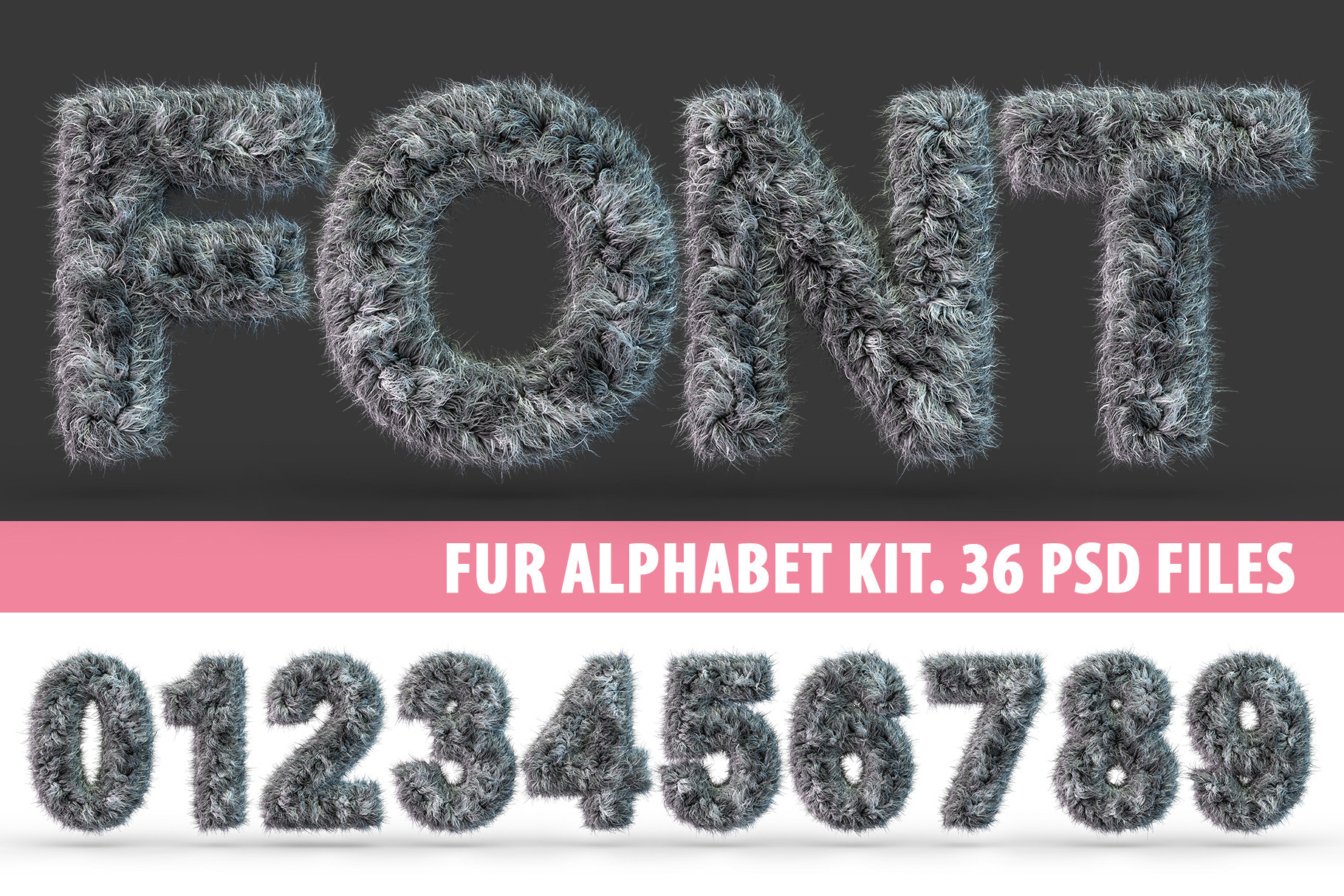
Uppercase fluffy and furry GRAY font
Uppercase fluffy and furry font made of fur texture for poster printing, branding, advertising. 3D rendering
Set of letters, numbers and symbols on transparent background.
A set of 36 symbols